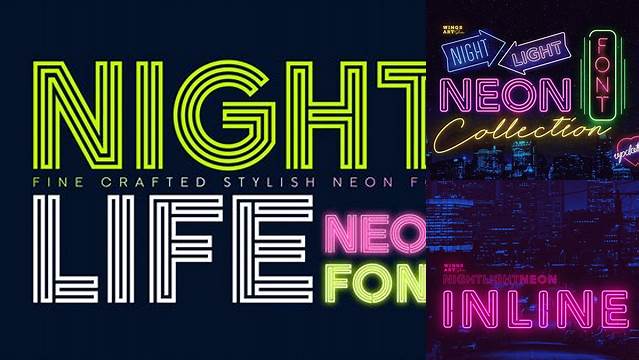
Neon Fonts: Your Guide To Free Nightlife Designs
Hey everyone! Let's dive into the awesome world of neon fonts, specifically those perfect for nightlife vibes. If you're looking to spice up your designs, whether it's for a club flyer, a website, or even just a cool personal project, you're in the right place. We're talking about free downloads, so you don't have to break the bank to get some seriously eye-catching typography. This guide will explore everything you need to know about neon fonts, from where to find them to how to use them effectively. Get ready to light up your designs!
Where to Find the Best Free Neon Fonts for Nightlife Designs
Designing with Neon Fonts: Tips and Tricks
Now comes the fun part: designing with neon fonts! Here are some tips to make your designs shine:
- Choose the Right Font: Not all neon fonts are created equal. Some are bold and chunky, perfect for headlines, while others are more delicate, ideal for smaller text elements. Consider the overall style of your design and the message you want to convey when selecting a font.
- Color Matters: Neon fonts are all about color! Experiment with vibrant, eye-catching colors. Classic neon colors include bright pink, electric blue, vibrant green, and sunny yellow. Use color combinations that create a strong visual impact.